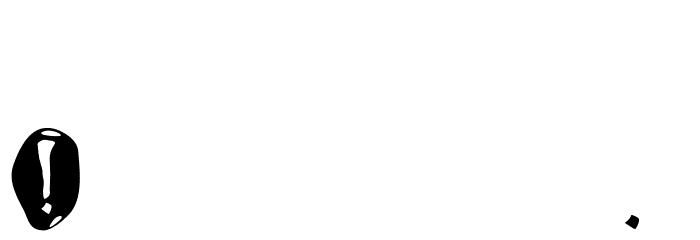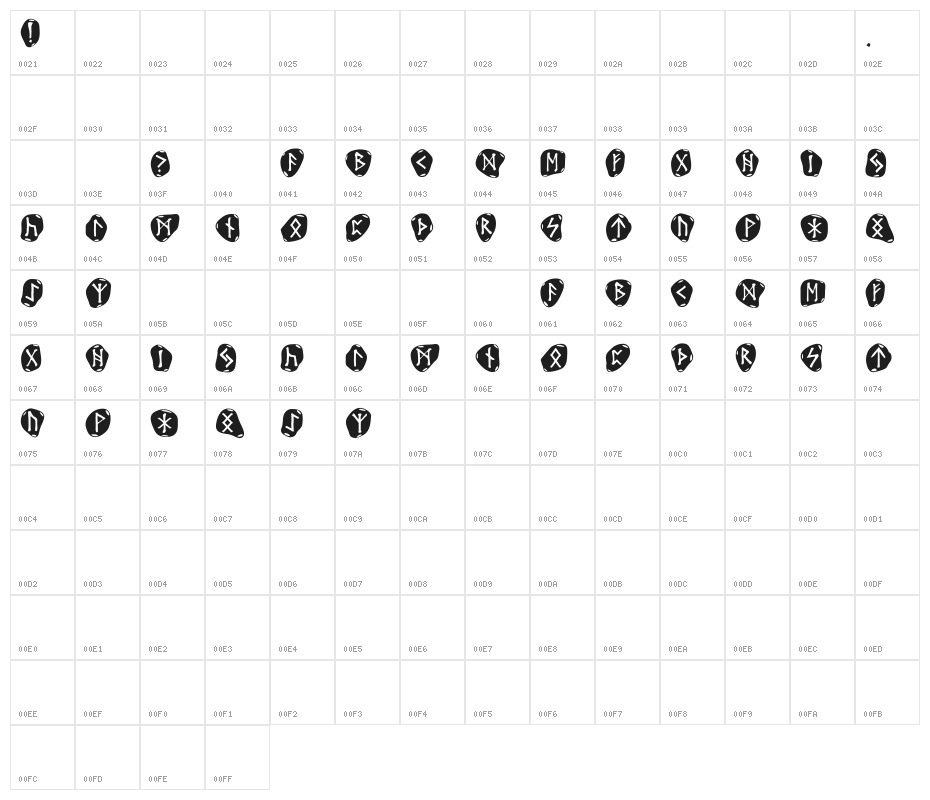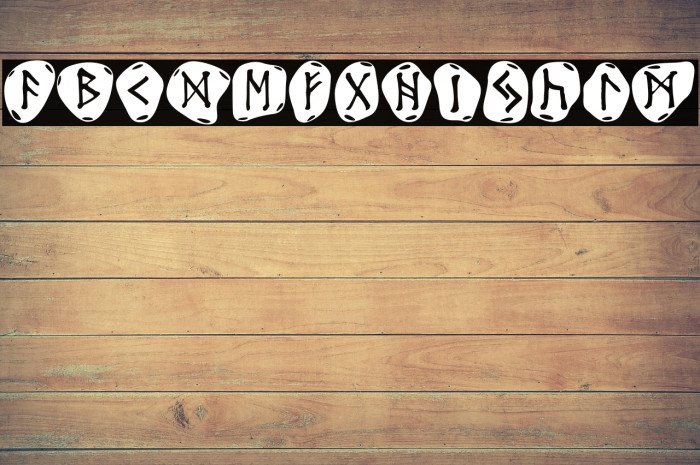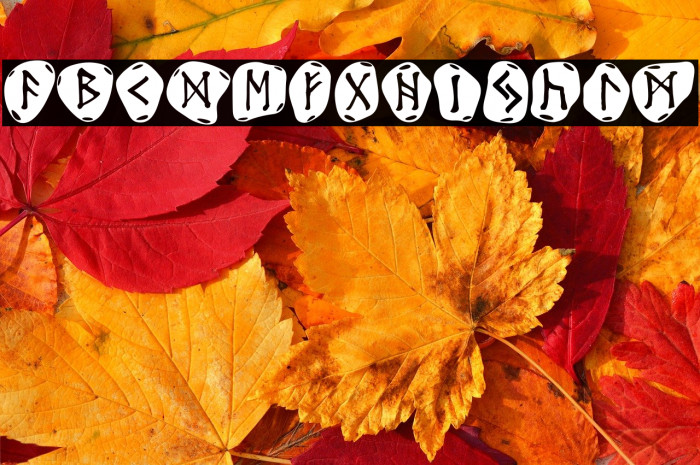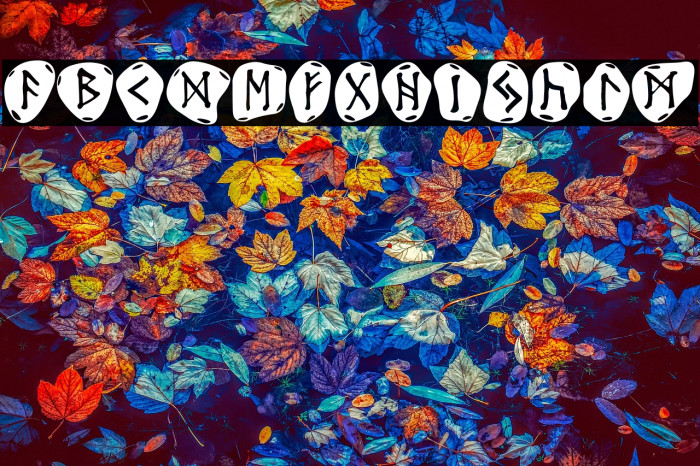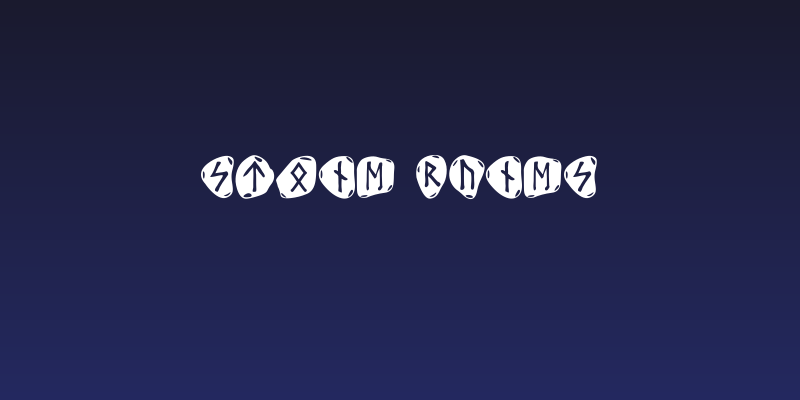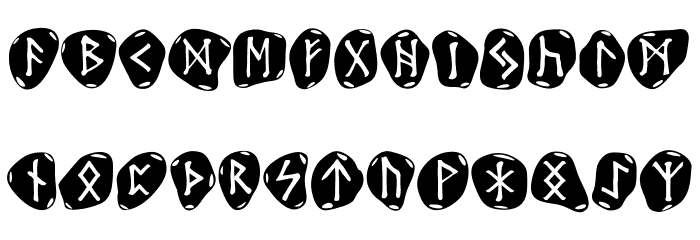
Stone Runes Font
Stone Runes Description
This font is inspired by ancient runic inscriptions, featuring characters that resemble carved symbols on stone. Each letter is encased in a stone-like shape, giving it a rugged and historical appearance. The characters are angular and geometric, reflecting the traditional runic style. The font lacks lowercase letters and numbers, focusing instead on a complete set of uppercase letters and a few special characters. Its unique design makes it ideal for projects that require a mystical or ancient aesthetic, such as fantasy-themed graphics or historical recreations.
Overall StyleVintage
Use CaseLogos, Headlines
Proposed ProjectsIdeal for fantasy-themed projects, historical recreations, or mystical branding.